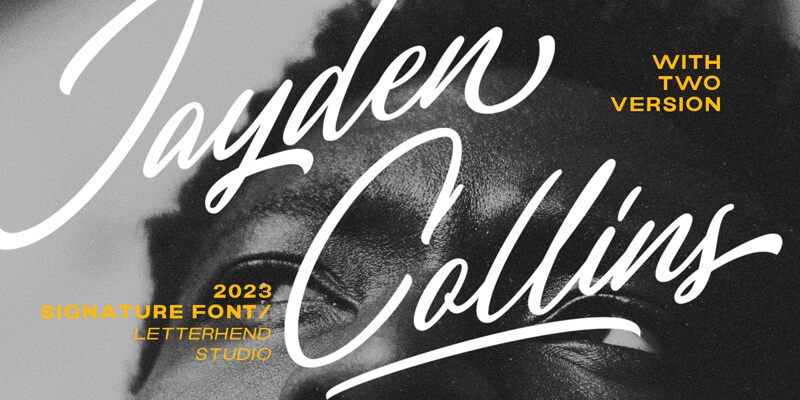
Jayden Collins Two font is a free handwritten font made by Letterhend Studio with elegance and flowing form. The signature style makes modern amateur designers and experts want to personalize their designs. Its style reflects modern elegance and adds a personal touch all at once which turns every word into an effective visual message.
Such a dashing, minimalist, clean yet classy font works well on business cards, websites, branding projects, images on social media, advertisements like posters or pamphlets, quotes making t-shirts in addition to uniforms or logos adding variety and interest.